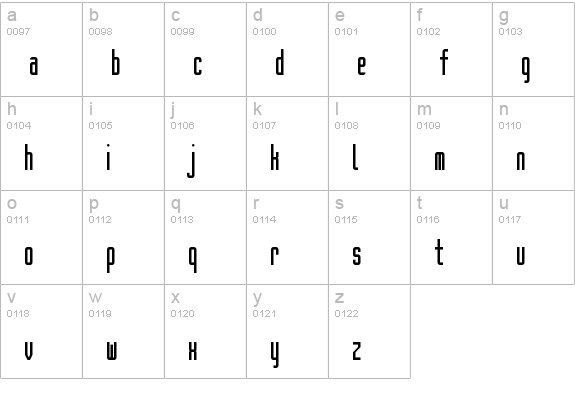
BrightonTwo Sans NBP Font Details
BrightonTwo Sans NBP font is a modern and versatile typeface that is sure to elevate any design project. With its clean lines and contemporary aesthetic, this font is perfect for a wide range of applications, from branding and advertising to packaging and web design. What sets BrightonTwo Sans NBP font apart is not only its sleek and stylish appearance, but also the fact that it is available for free. Yes, you read that right! This incredible font can be freely downloaded at FontsMarket.com, allowing designers and creatives from all walks of life to access and utilize its full potential. Whether you're a professional designer looking to add a touch of sophistication to your next project or a beginner in need of a high-quality font to make your creations stand out, BrightonTwo Sans NBP font is the ideal choice. Its extensive character set and various weights and styles make it incredibly versatile, ensuring that it can adapt to any design concept or style. The designers behind BrightonTwo Sans NBP font have meticulously crafted each letterform, paying attention to every detail to ensure legibility and visual harmony. The result is a font that effortlessly combines elegance with readability, making it a reliable and attractive option for any design endeavor. With its generous availability and exceptional design, BrightonTwo Sans NBP font is a must-have in every designer's font library. So why wait? Head over to FontsMarket.com and download this fantastic font today. Elevate your designs and unleash your creativity with BrightonTwo Sans NBP font!